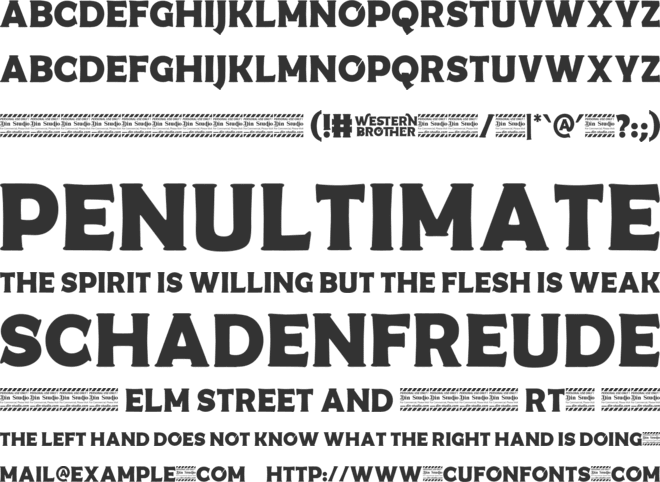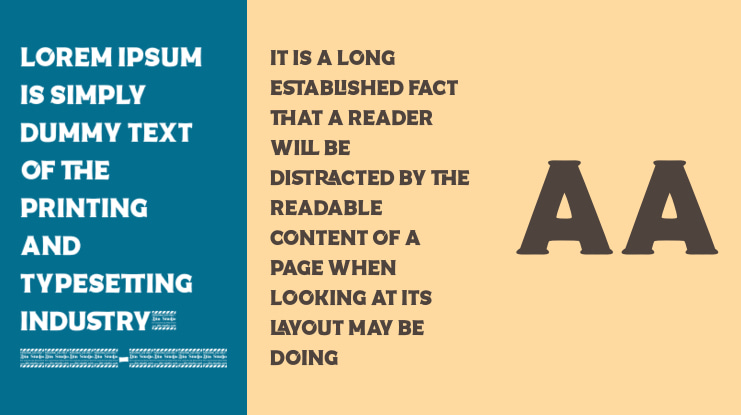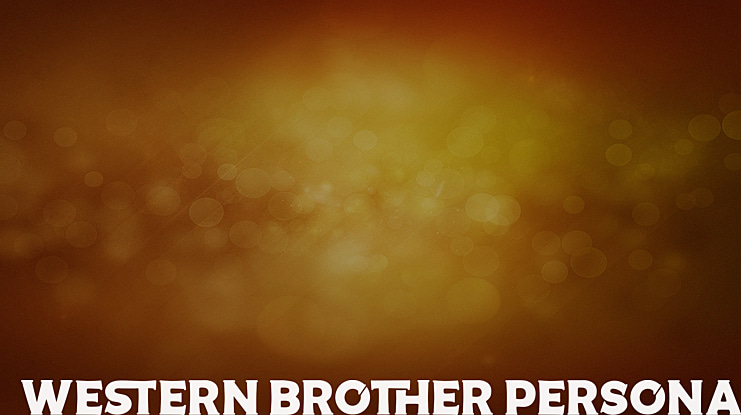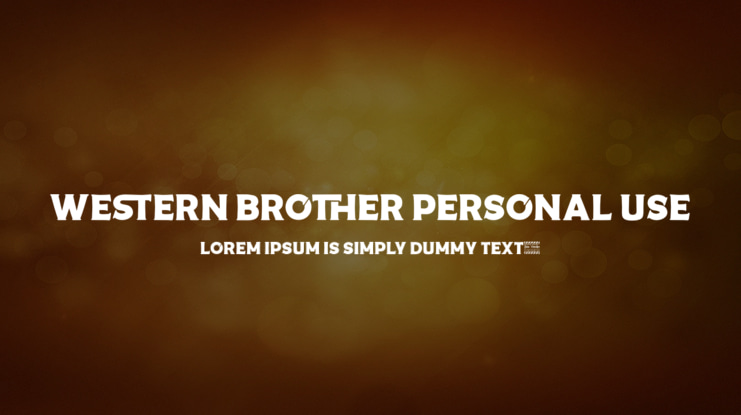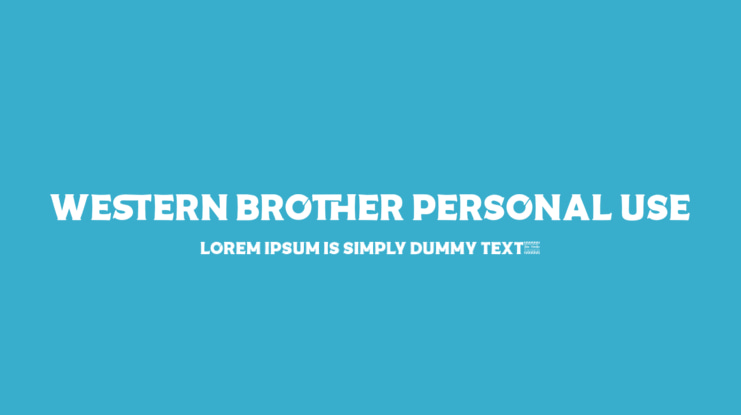
Western Brother Vintage Font is a typeface that is made all characters in uppercase. An excellent choice to add the right amount of retro touch. This typeface with artistic style looks very interesting for loads of different projects and promotions.